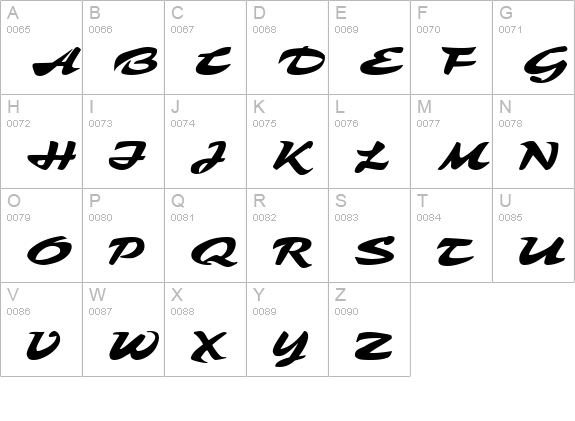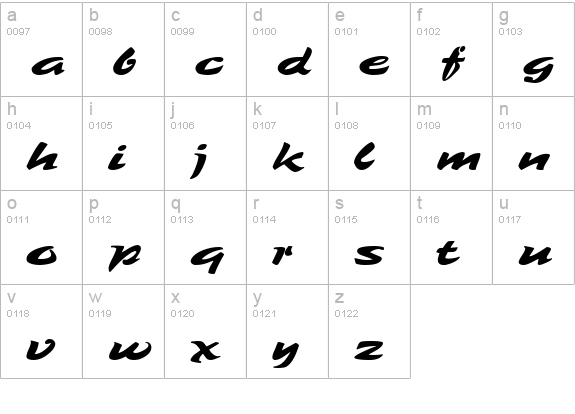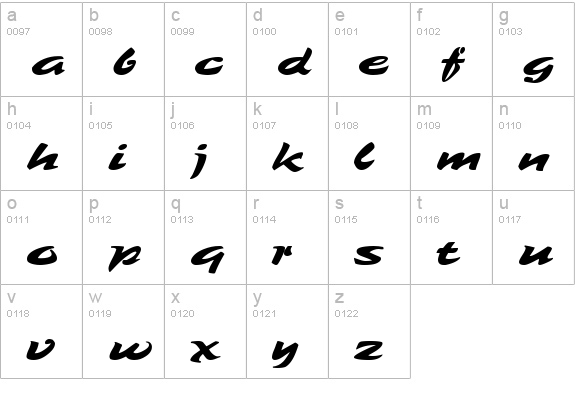
Tambo Script MF Font Details
Tambo Script MF is a beautifully crafted font that exudes elegance and sophistication. Its delicate and flowing script style makes it perfect for adding a touch of charm to any design project. With its graceful curves and intricate details, Tambo Script MF is sure to catch the eye and leave a lasting impression. What sets Tambo Script MF apart is that it is not only stunning, but also completely free to use. You can easily download this stunning font for free at FontsMarket.com. Whether you're working on a wedding invitation, a branding project, or any other creative endeavor, Tambo Script MF is the perfect choice to elevate your design and make it stand out. Don't miss out on the opportunity to add this exquisite font to your collection. Download Tambo Script MF for free today and bring a touch of elegance to your next project.